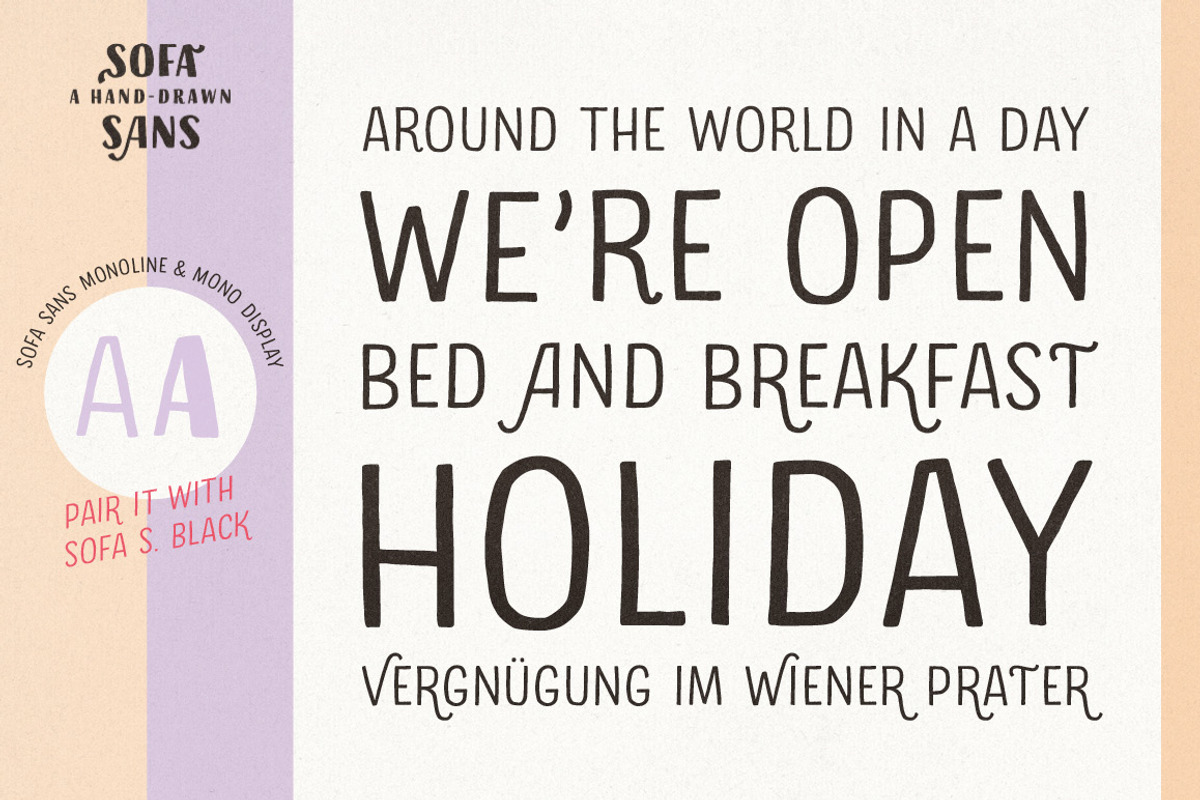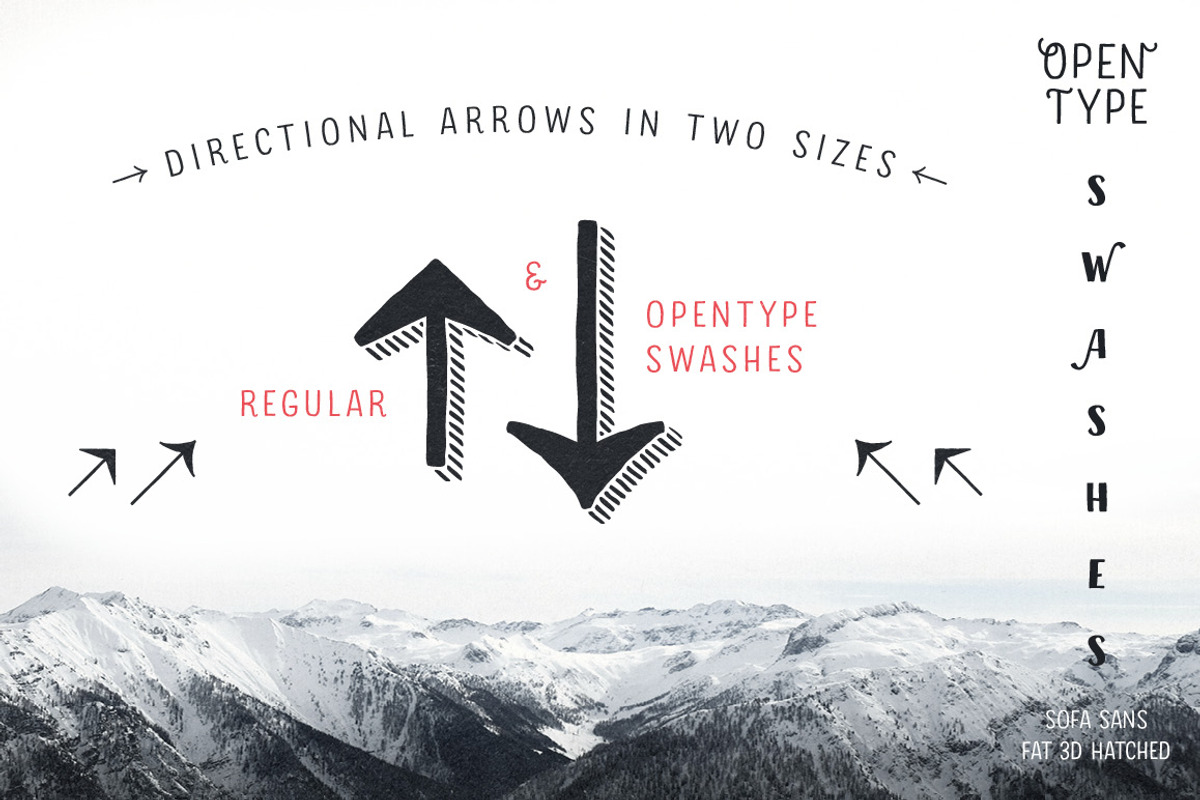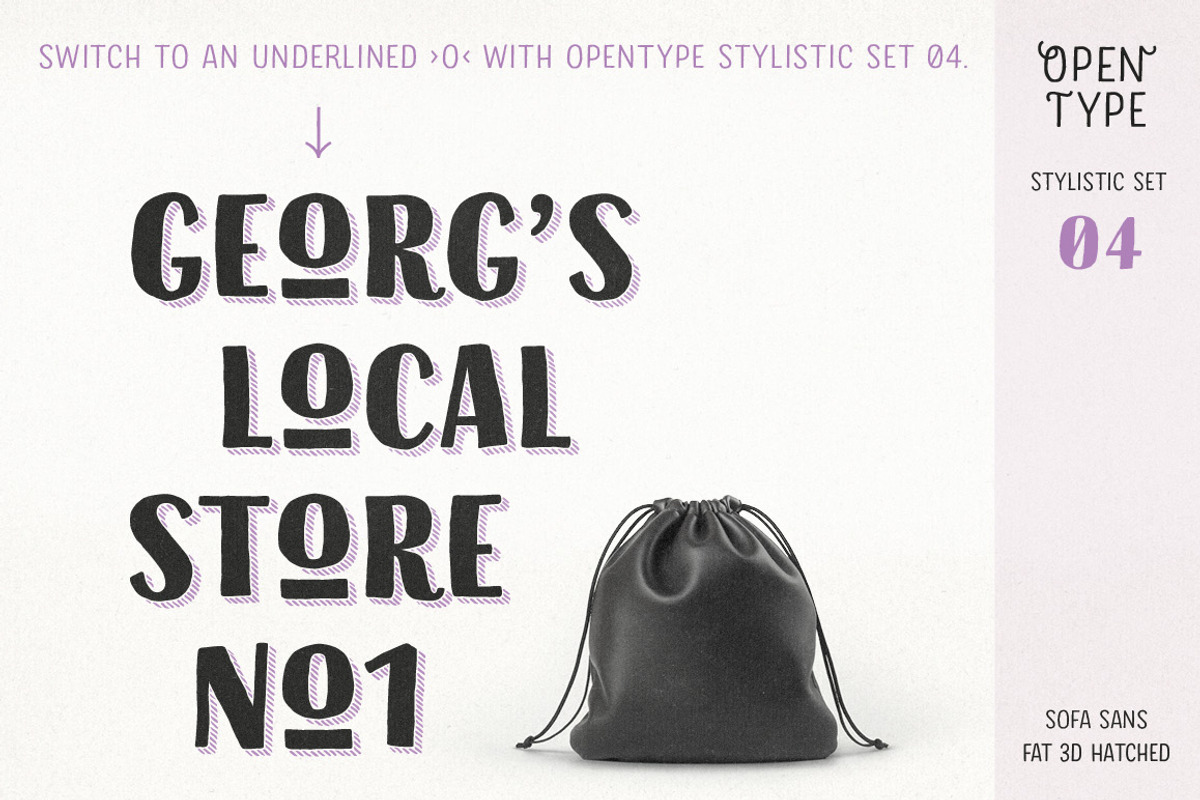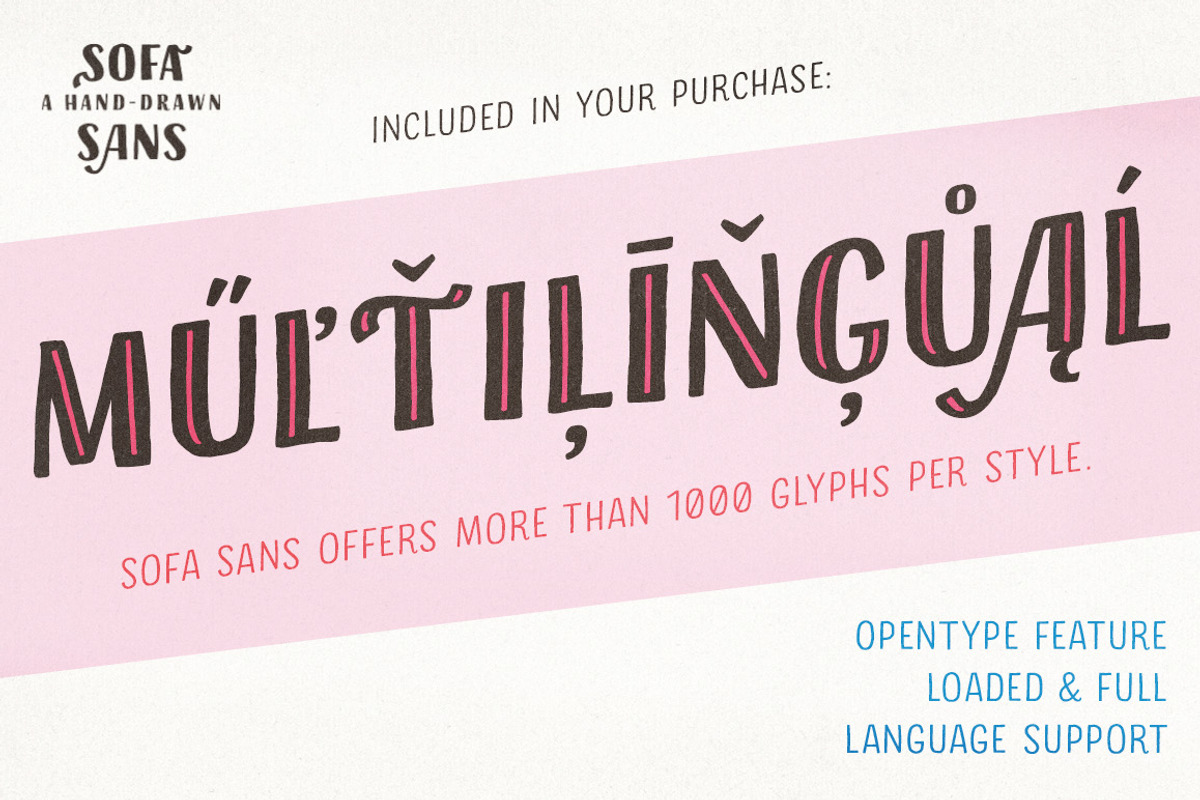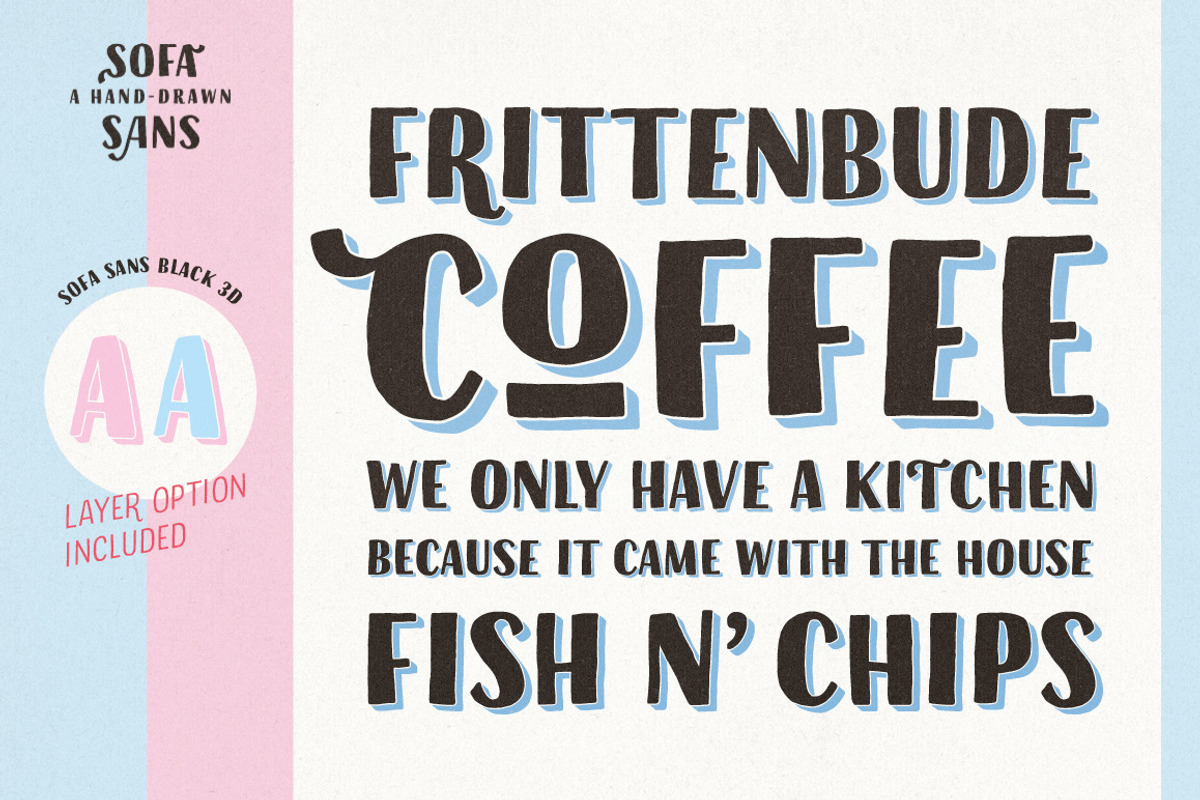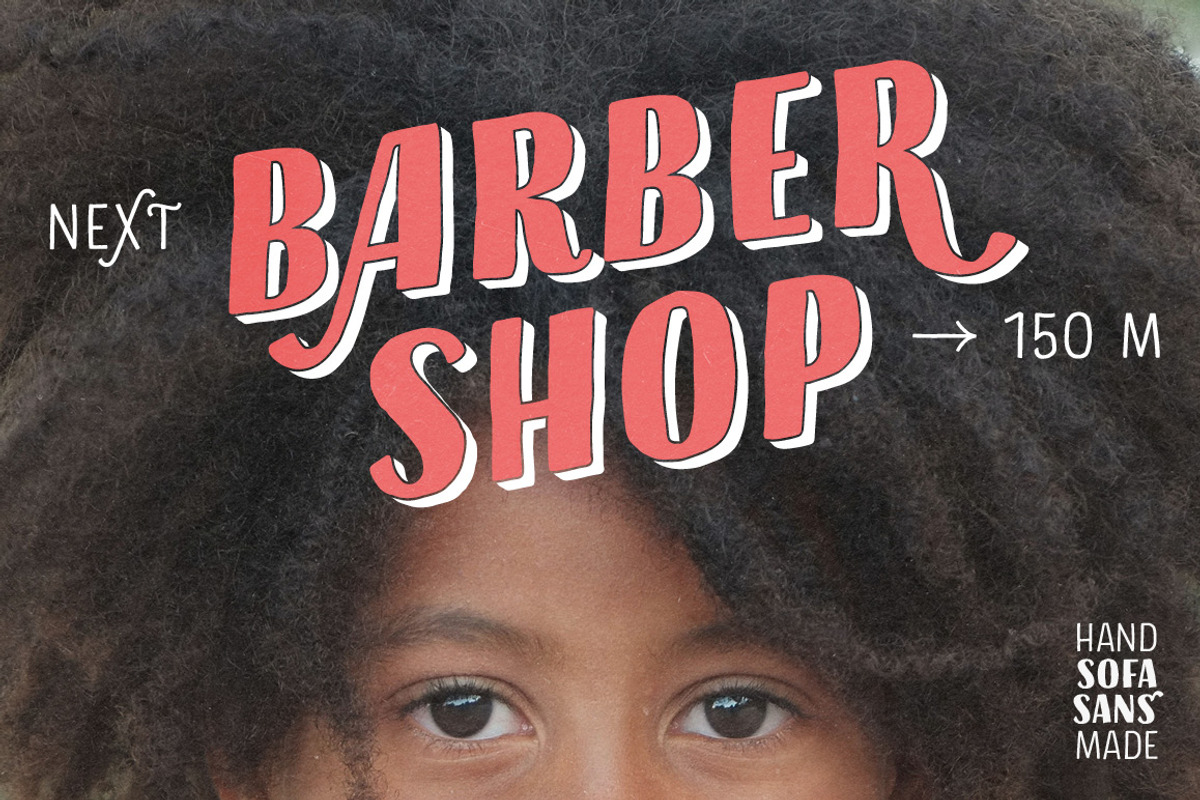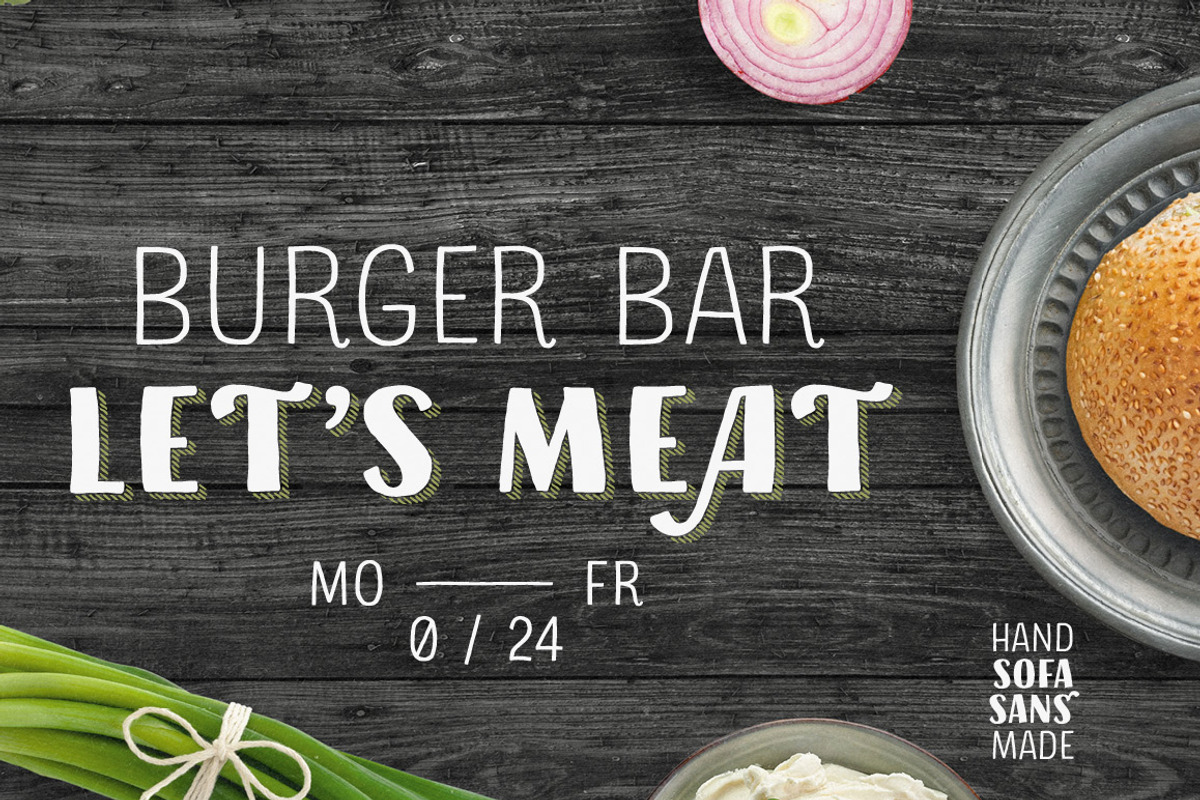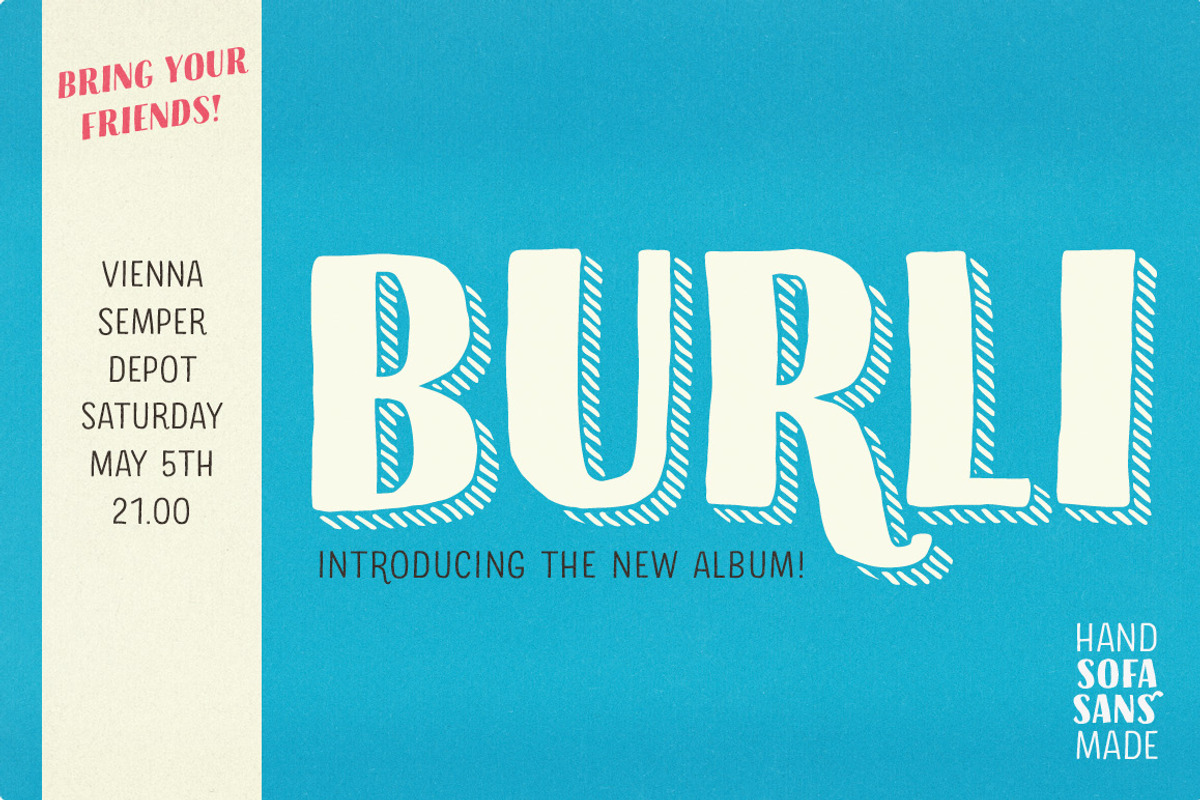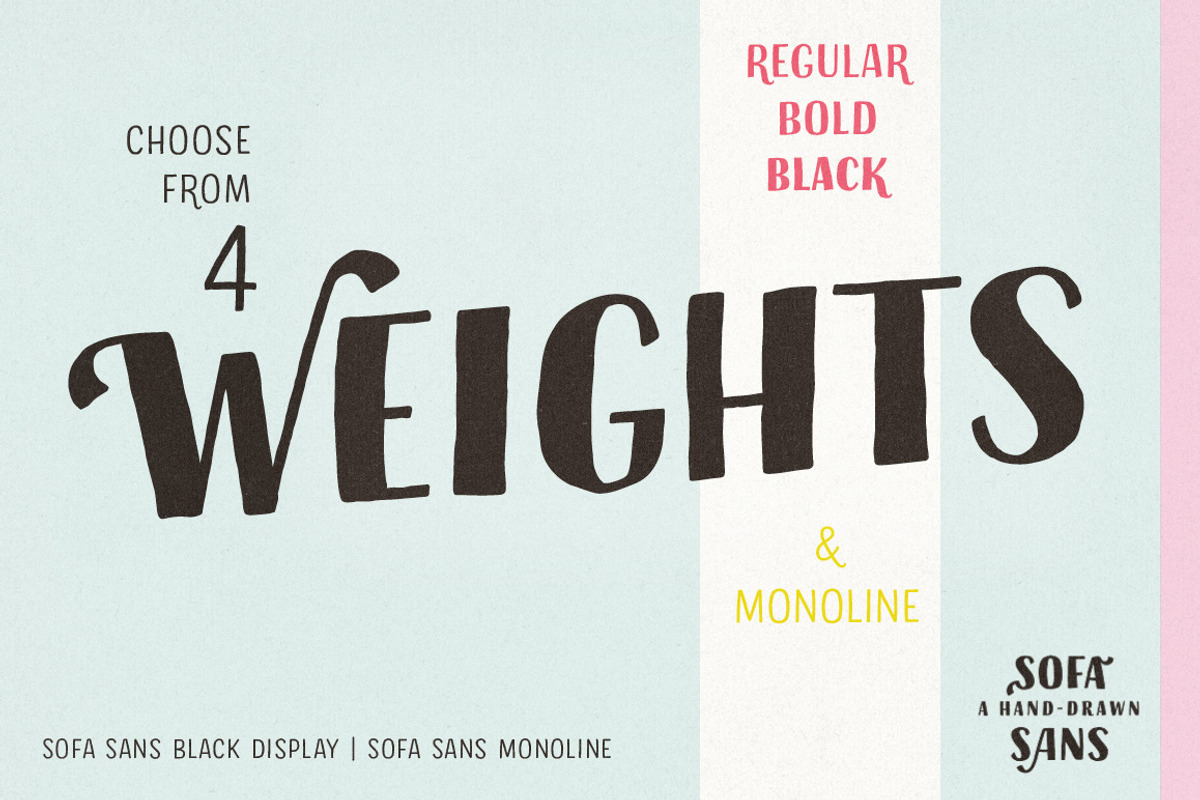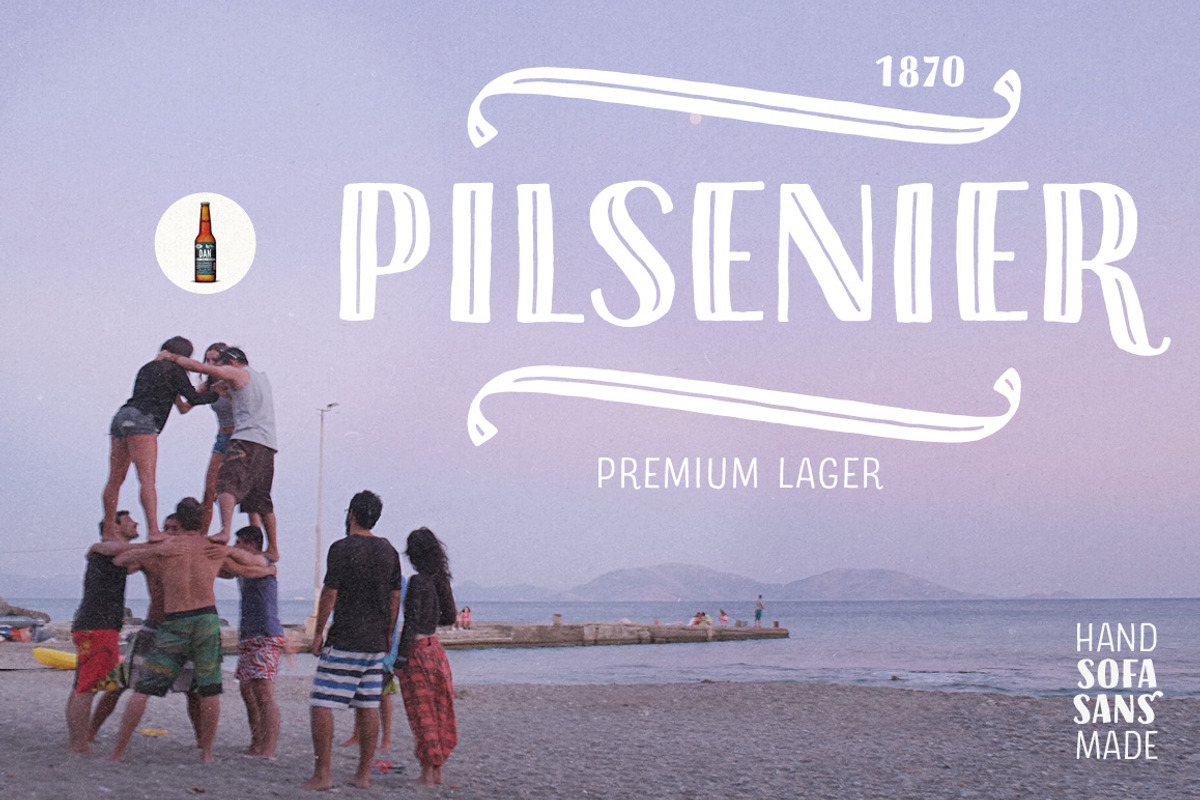
A Hand Drawn & Lettered Bundle
High-contrast & all handmade – the powerful Sofa Sans.
Sofa Sans is a hand drawn/handmade all-caps display-family for packaging, posters, book-covers, food- and logo-design and will best stand out in huge grades. Its handcrafted character is friendly and eye-catching. Stylish features and alternates add personality and let you create unique logos and stunning headlines. Two optical sizes and extra shadow-, 3D-, inline- and hatched-styles make Sofa Sans a flexible solution for any display need.
The family boasts 4 weights from a monolinear Thin to Black, each containing more than 1000 glyphs, plenty of OpenType features and full ISO latin 1 & 2 language support.
High contrast is one of Sofa Sans’ key features. To maintain a wide range of use, choose from two optical sizes: Standard and Display with a maximum of contrast especially in the heavier weights.
Sofa Sans includes a variety of OpenType alternates which add uniqueness to your work. OpenType features include Contextual-, Swashes- and Titling-Alternates, Beginnings and Endings as well as Stylistic-Sets for even more alternative glyphs. OpenType Swashes- and Titling-Alternates are smart features which automatically adjust all swashy letters to the available white space. Switch one on and let Sofa Sans do the rest.
Bundle Features
- Pack of 13 unique fonts plus 5 layer fonts
- 1000+ glyphs per font
- Shadow-, 3D-, inline- and hatched-styles
- OpenType feature guide included
- Multilingual support (see below)